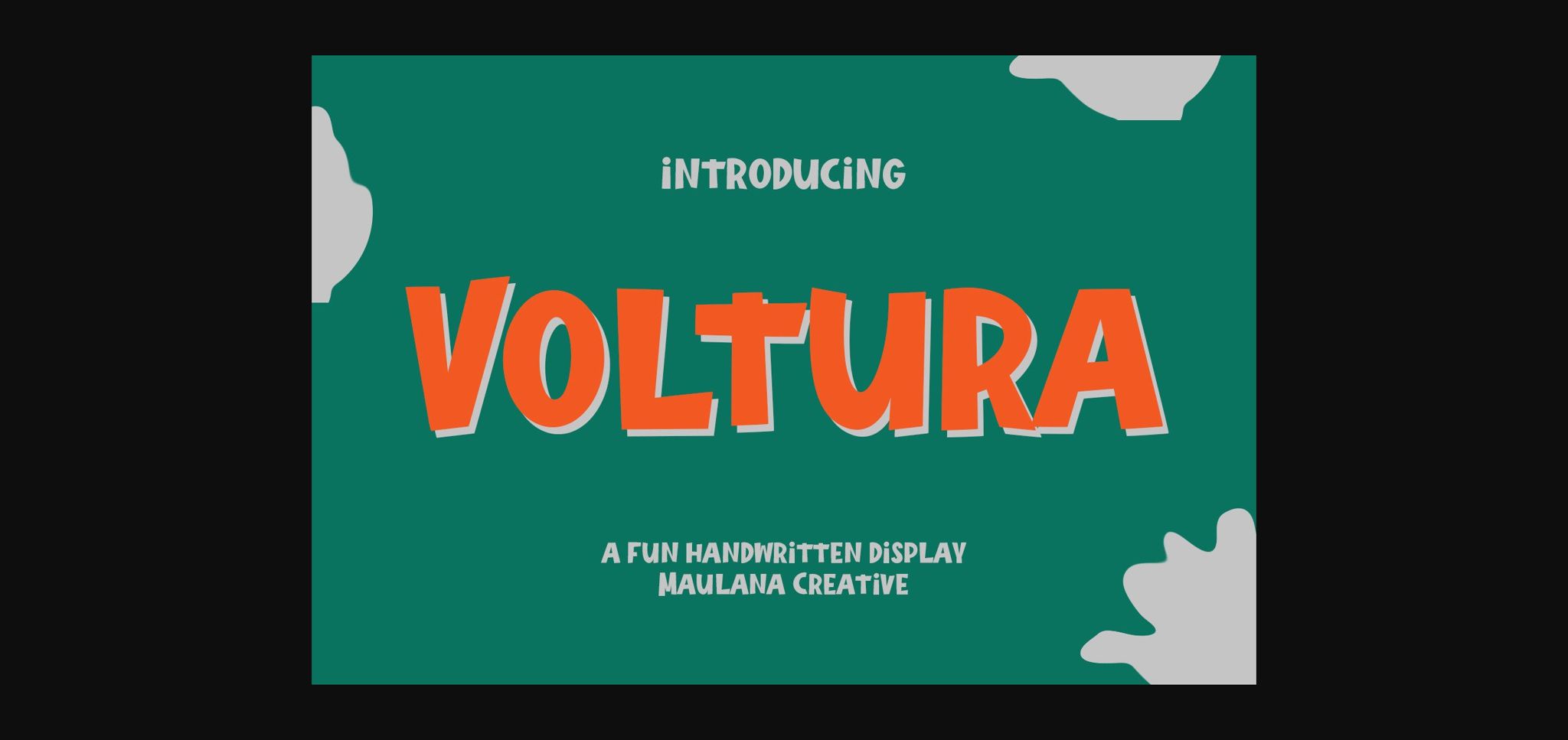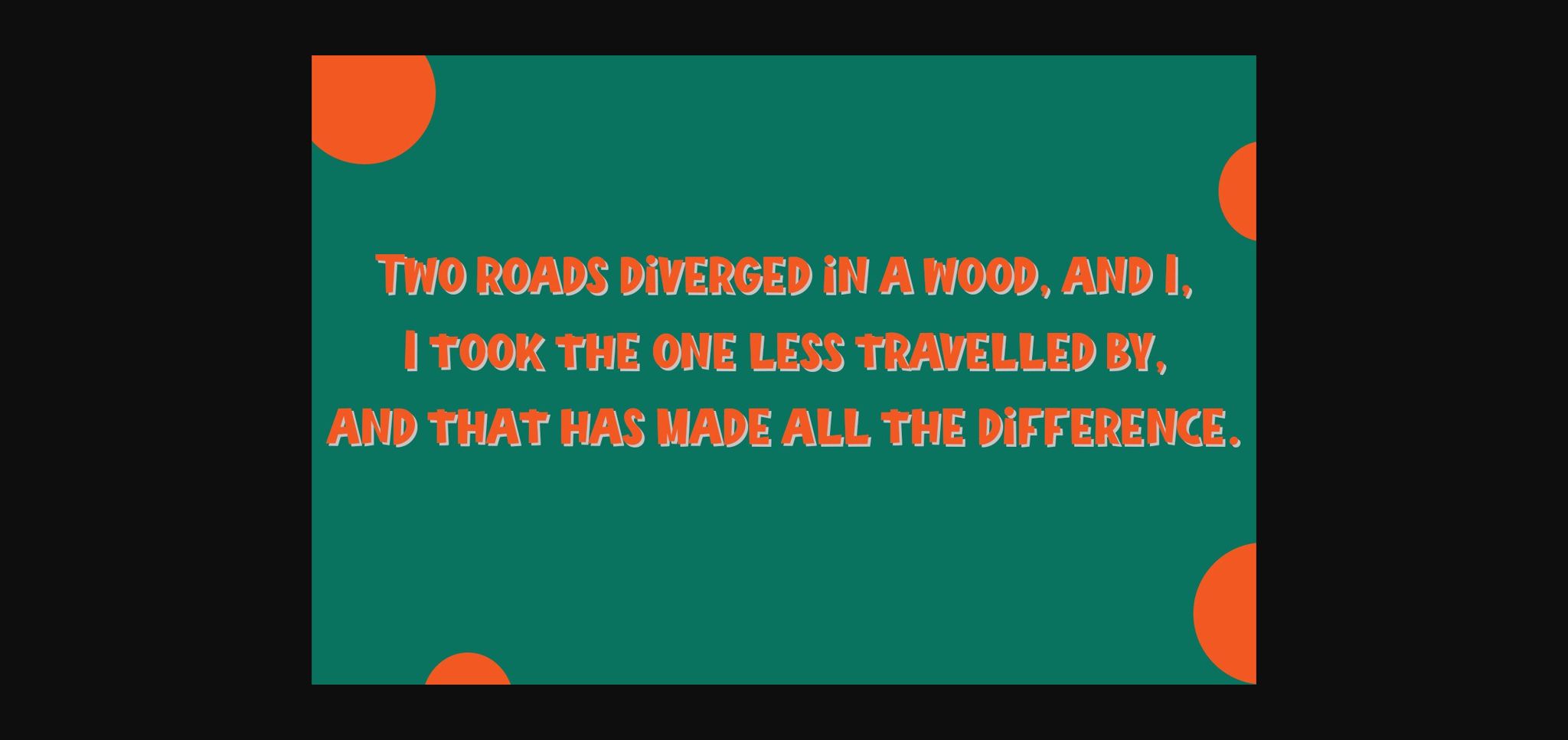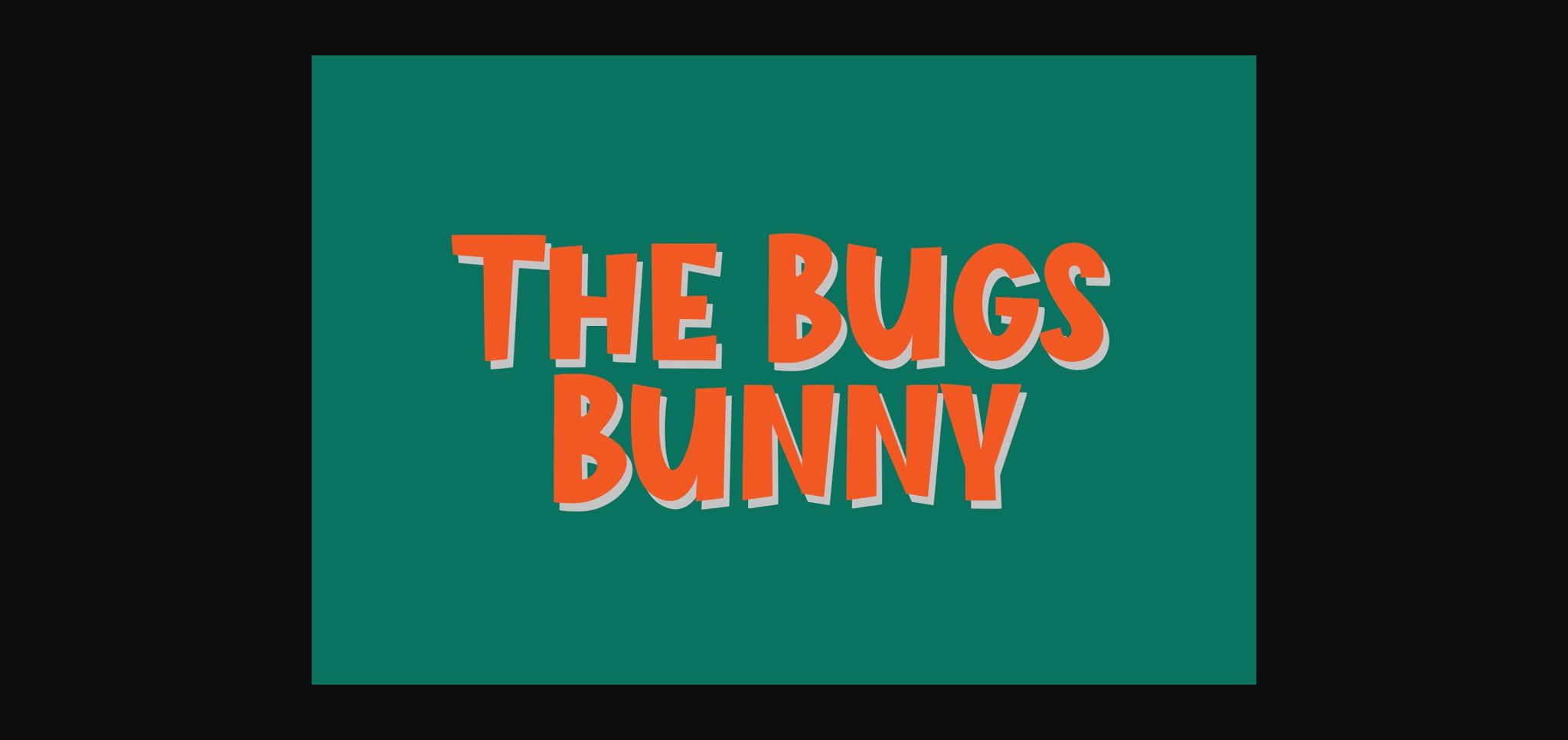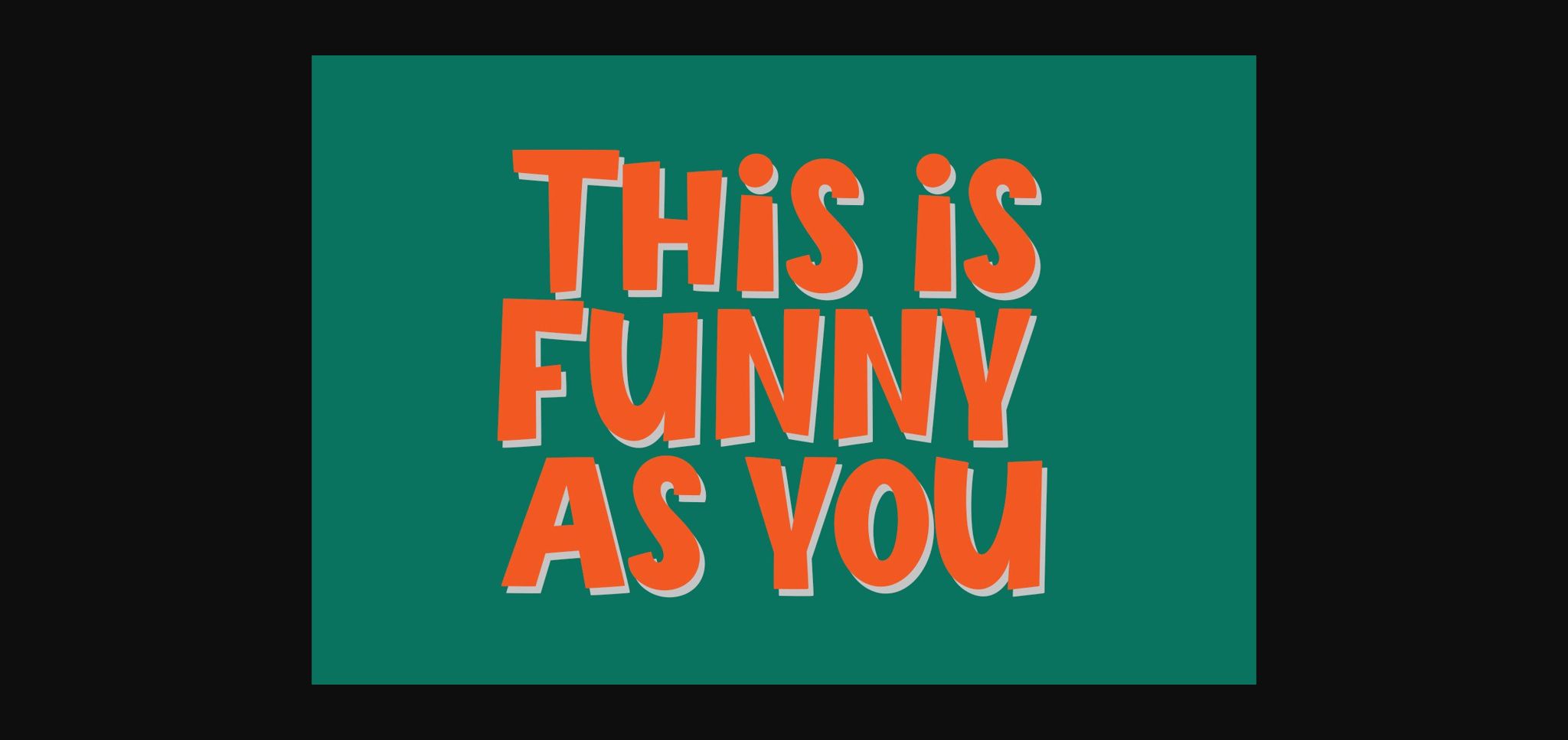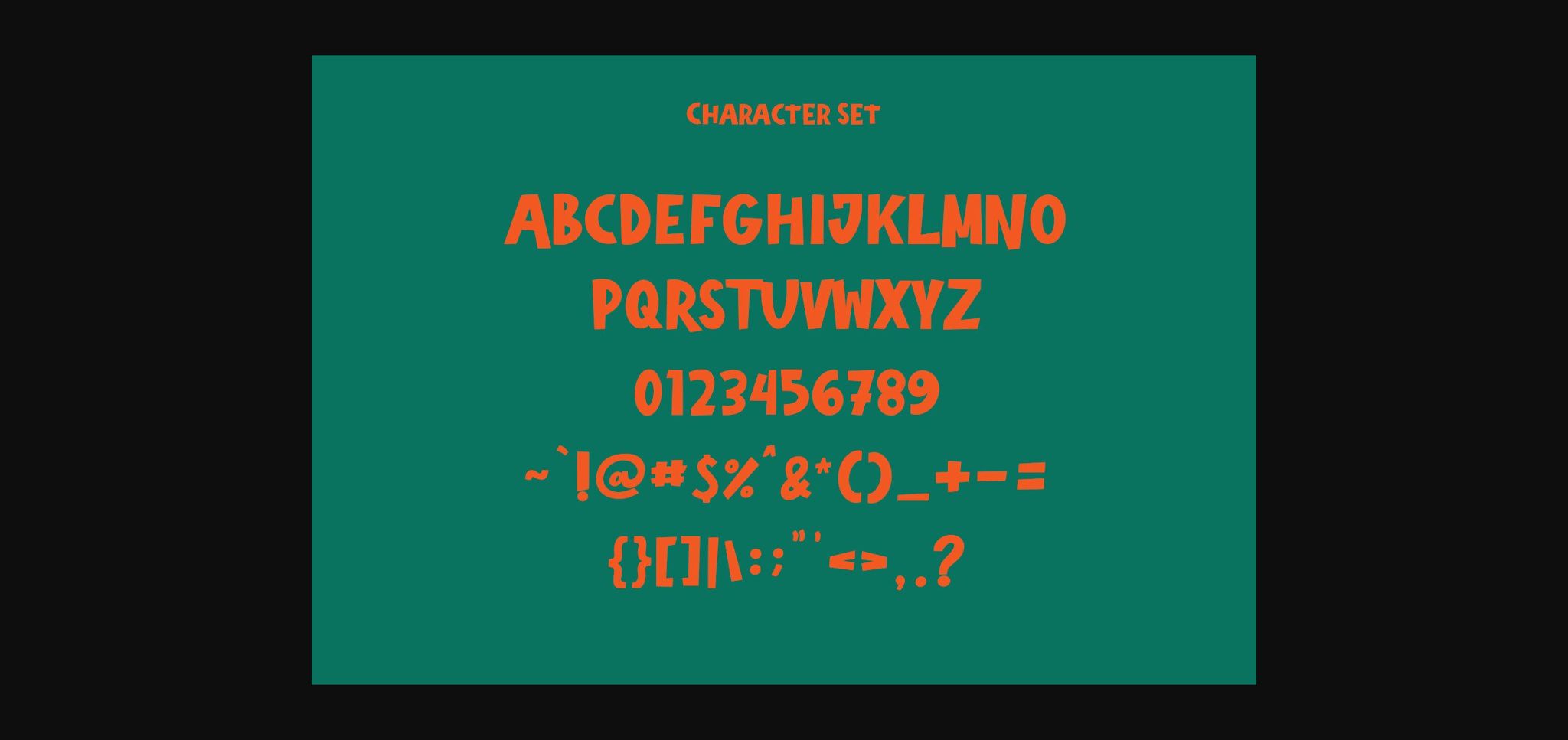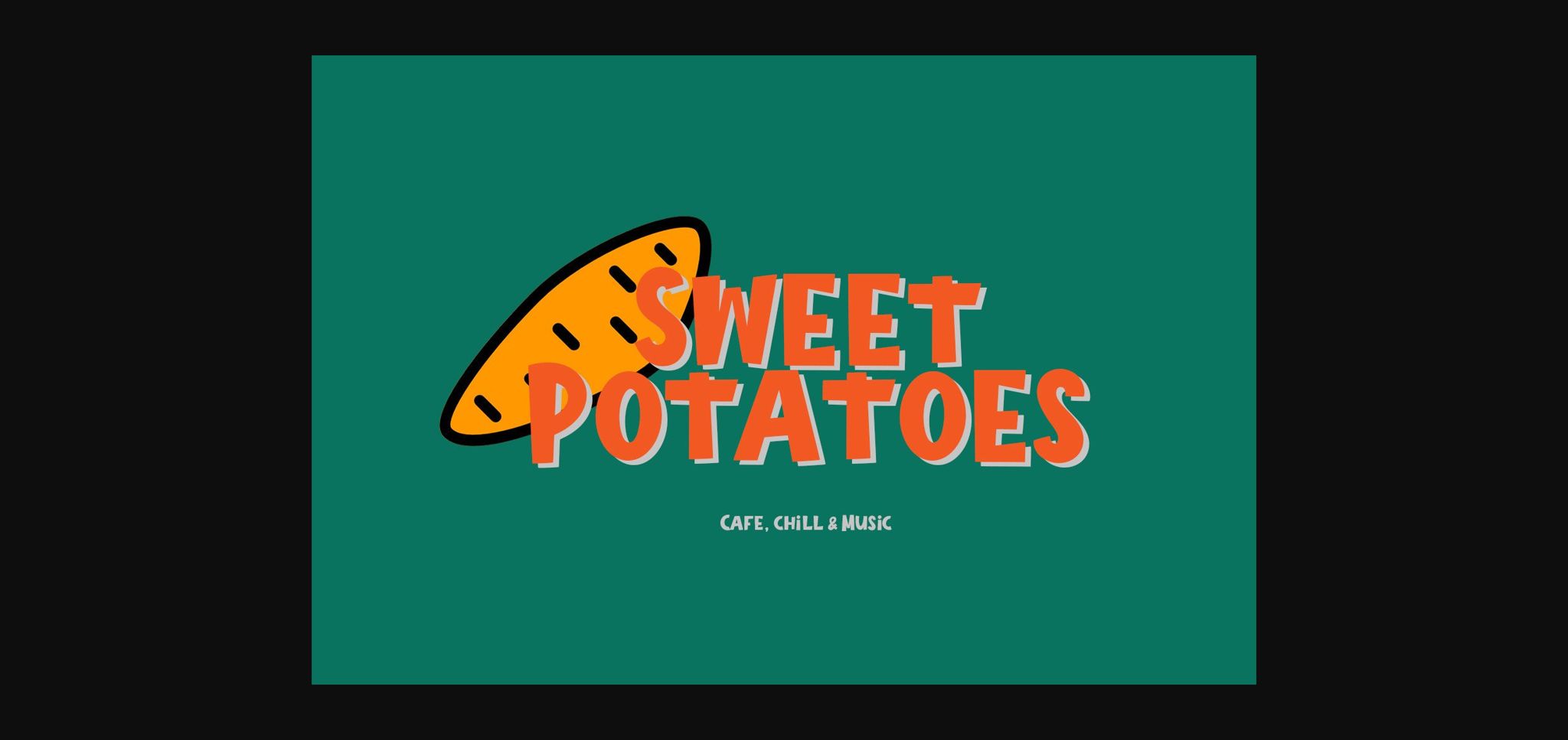
Voltura Font
About Voltura Font
Voltura is a fun and friendly sans serif font. Whether you use it for cartoon-related designs, children’s games, or just any creation that requires a lovely touch, this font will be an amazing choice.